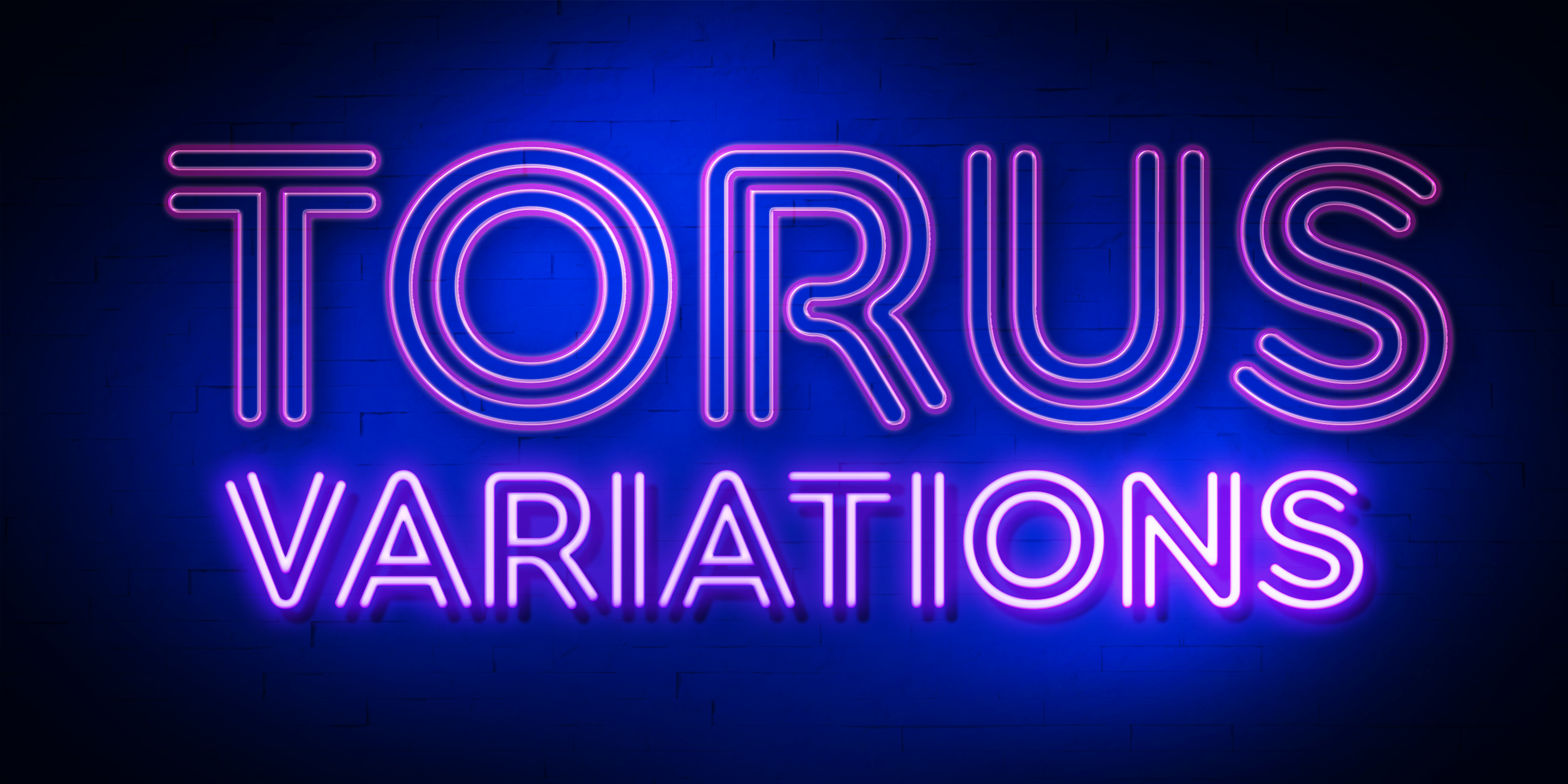
Torus Variations Font is perfect for modern tech branding, futuristic interface designs, scientific publication layouts, mathematics textbooks, architectural presentations, geometric art projects, engineering documentation, digital product packaging, contemporary logo designs, and innovative advertising campaigns.
What makes Torus Variations Font exciting is its extraordinary mathematical precision and geometric perfection that transforms typography into a study of pure form and spatial relationships, creating letterforms that embody the elegant beauty of geometric principles and mathematical harmony. This exceptional typeface features perfectly circular curves and precise angular relationships that reflect the mathematical concept of torus geometry while maintaining optimal readability for contemporary applications. The font's geometric personality combines scientific accuracy with aesthetic sophistication, creating typography that feels both intellectually stimulating and visually compelling. Each character demonstrates meticulous mathematical construction with consistent proportional relationships and perfectly balanced spacing that suggests the ordered beauty of geometric theorems, making every word appear as precisely engineered as architectural blueprints or scientific formulas.
The Torus Variations Font family includes mathematically precise variations: Torus Variations Regular, Torus Variations Bold, Torus Variations Light, Torus Variations Thin, Torus Variations Black, Torus Variations Condensed, and Torus Variations Extended. Each style maintains the signature geometric character while offering different mathematical ratios and proportional relationships for creating systematic design hierarchies and scientifically-inspired communications.
Whether you're designing technology interfaces, creating scientific documentation, or developing mathematically-inspired brand identities, Torus Variations Font Free Download delivers exceptional typography that appeals to audiences who appreciate precision, logic, and geometric beauty. This remarkable typeface successfully bridges the gap between mathematical theory and practical design application, making it an invaluable resource for projects requiring intellectual rigor and geometric sophistication.
The font's precise character makes it particularly effective for technology companies and software developers seeking typography that reflects their commitment to systematic thinking and logical problem-solving. Torus Variations Font communicates technical competence and mathematical precision, essential qualities for businesses operating in fields where accuracy and systematic approaches directly impact success. Engineering firms frequently choose this typeface for their technical documentation, where its geometric clarity reinforces their expertise in precise calculations and methodical project execution.
Educational institutions and academic publishers find Torus Variations Font especially valuable for mathematics textbooks, scientific journals, and technical publications where geometric typography enhances the learning experience while maintaining the professional standards expected in academic environments. The font's mathematical foundation helps students and researchers connect with content that celebrates the inherent beauty of mathematical concepts.
Torus Variations Font's distinctive character makes it ideal for architectural firms and design studios that need typography capable of reflecting their systematic approach to spatial design and structural engineering. The font helps establish professional identities that resonate with clients seeking partners who combine creative vision with technical precision and mathematical understanding.
Digital product designers appreciate how Torus Variations Font performs exceptionally well in user interface applications where geometric consistency and systematic spacing contribute to intuitive user experiences and visually coherent information architecture across complex software systems and digital platforms.
The technical excellence of Torus Variations Font includes mathematically optimized character spacing, consistent geometric proportions, and precise angular relationships that ensure professional results across various applications from detailed technical drawings to large-format architectural presentations.
For creative professionals seeking typography that embodies mathematical beauty and geometric precision, Torus Variations Font represents the perfect fusion of scientific accuracy and design sophistication, ensuring every project achieves the intellectual distinction and systematic elegance that marks truly innovative technical communication.